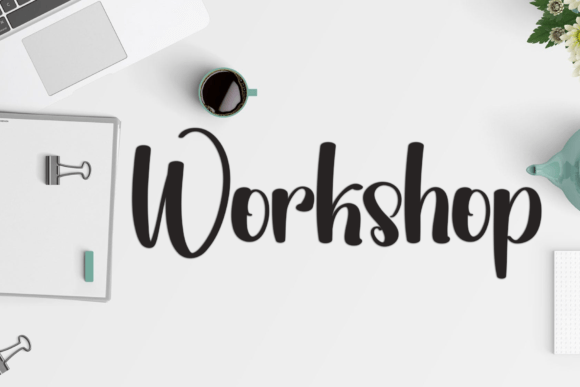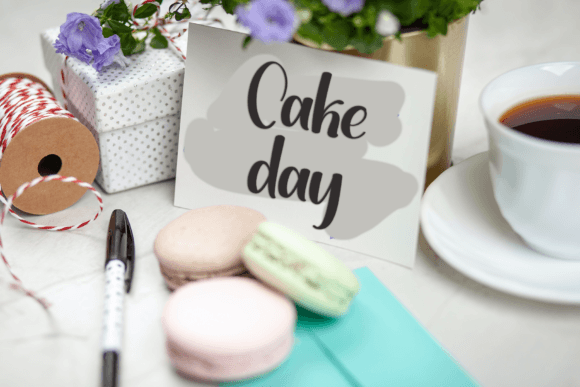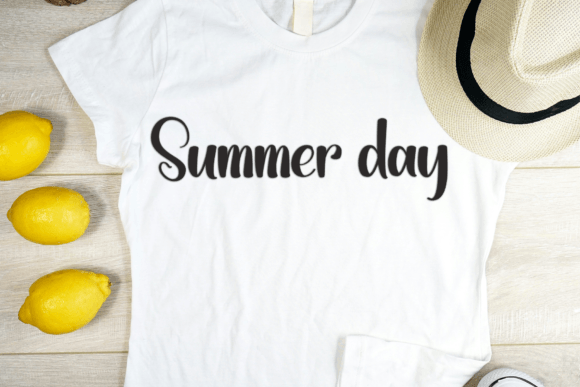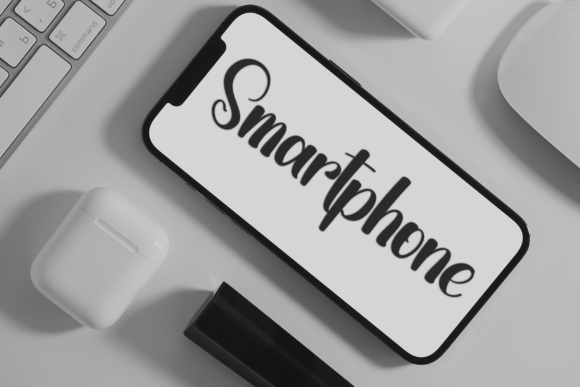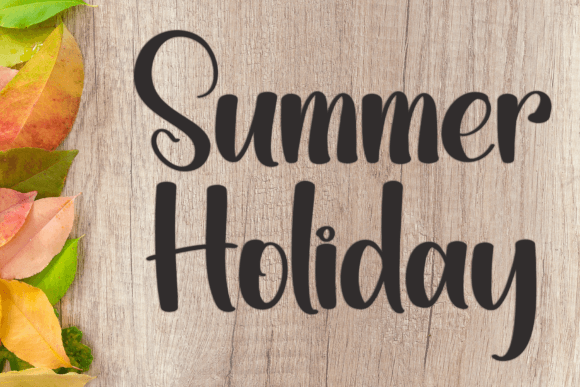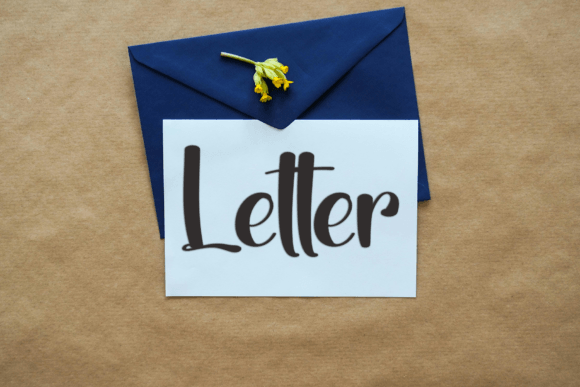
Introducing Button Font: Elevate Your Designs with Elegance
Are you a designer, crafty DIY enthusiast, or social media influencer looking for a font that adds a touch of sophistication to your creative projects? Look no further than Button Font, a beautiful, handwriting script font designed to bring a dash of elegance to your designs. In this article, we’ll dive into the world of Button Font, exploring its features, uses, and benefits, and why it’s the perfect choice for your next project.
What is Button Font?
Button Font is a carefully crafted, magical handwriting font that exudes elegance and refinement. Its unique, flowing script is perfect for adding a personal touch to your designs, whether you’re creating social media graphics, DIY projects, or professional marketing materials. With Button Font, you can turn any creative idea into a stunning piece of art that captures the attention of your audience.
Key Features of Button Font
- Handwritten with love: Button Font is a genuine, handwriting script font, giving it a warm, personal feel that’s perfect for connecting with your audience.
- Elegant and refined: The font’s flowing script and delicate lines add a touch of sophistication to any design, making it ideal for high-end branding, marketing materials, and social media graphics.
- Versatile: Button Font is perfect for a wide range of creative projects, from Instagram graphics and DIY crafts to professional marketing materials and website designs.
Uses for Button Font
Button Font is an incredibly versatile font that can be used in a variety of creative projects, including:
- Instagram graphics: Add a touch of elegance to your Instagram feed with Button Font. Use it to create stunning quotes, announcements, and promotional graphics that stand out from the crowd.
- DIY projects: Button Font is perfect for crafty DIY enthusiasts who want to add a personal touch to their projects. Use it to create beautiful, handmade cards, gift tags, and other paper crafts.
- Marketing materials: Button Font is ideal for professional marketing materials, such as brochures, flyers, and business cards. Its elegant script adds a touch of sophistication to any design, helping you to establish a strong brand identity.
- Website design: Use Button Font to create stunning website headers, titles, and other design elements that add a touch of elegance to your website.
Benefits of Using Button Font
So why choose Button Font for your next project? Here are just a few benefits of using this beautiful font:
- Stand out from the crowd: Button Font is a unique and elegant font that will help your designs stand out from the crowd.
- Add a personal touch: Button Font’s handwritten script adds a warm, personal feel to any design, helping you to connect with your audience.
In conclusion, Button Font is a magical handwriting font that adds a touch of elegance to any design. Its unique script, versatility, and ease of use make it the perfect choice for designers, crafters, and social media influencers looking to elevate their creative projects. Whether you’re looking for fonts for Instagram, calligraphy scripts for DIY projects, or a professional font for marketing materials, Button Font is the perfect choice. So why wait? Try Button Font today and turn your creative ideas into stunning pieces of art!